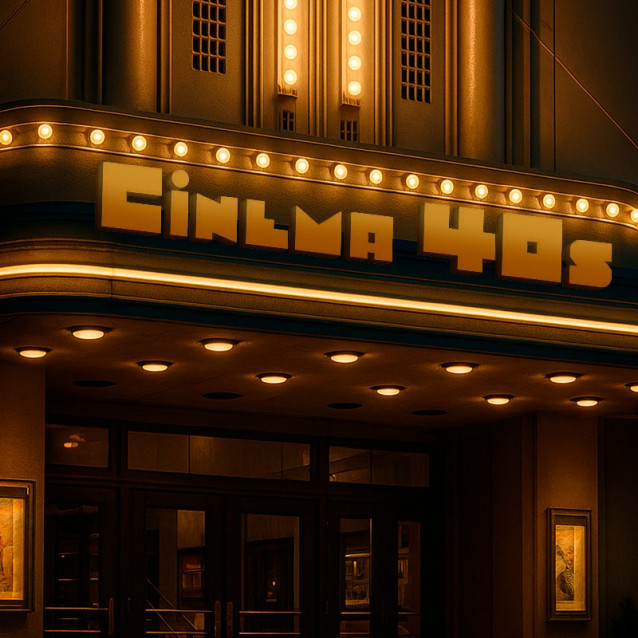
Cinema 40s Font, suitable for any design needs : logo, branding, modern advertising design, logos, poster quote, book / cover Title, editorial design, website / blog, card, t-shirts, and any hand-lettered needs.
Cinema 40s Font
| Classification: | Bitmap Pixel Fonts, Display Fonts, Techno / Futuristic Fonts |